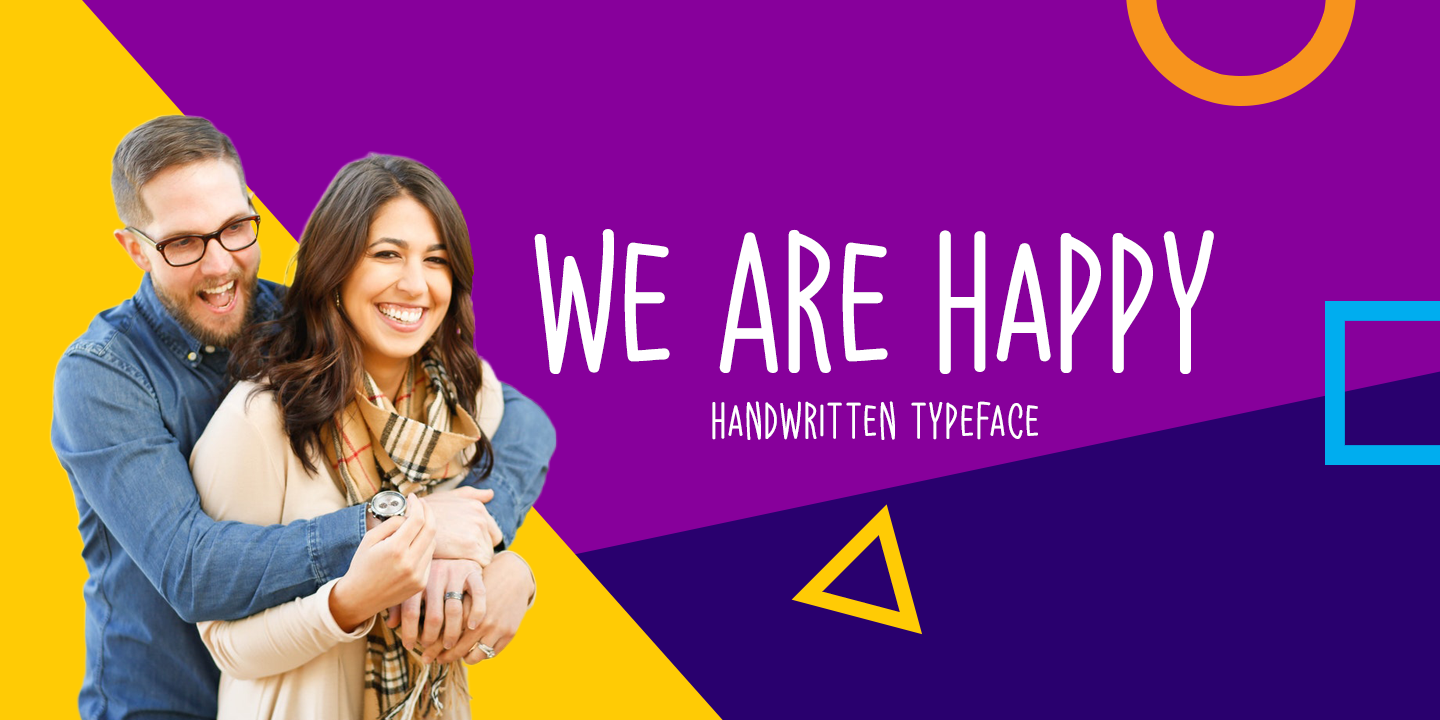
Designed by Md. Shohail Bhuiyan, We Are Happy is a hand display font family published by Seemly Fonts.
We Are Happy is a cute and simple lettered handwritten font that can be used for all chalkboard quotes or teaching material! Its authentic look will add a personal and realistic feel to your designs.